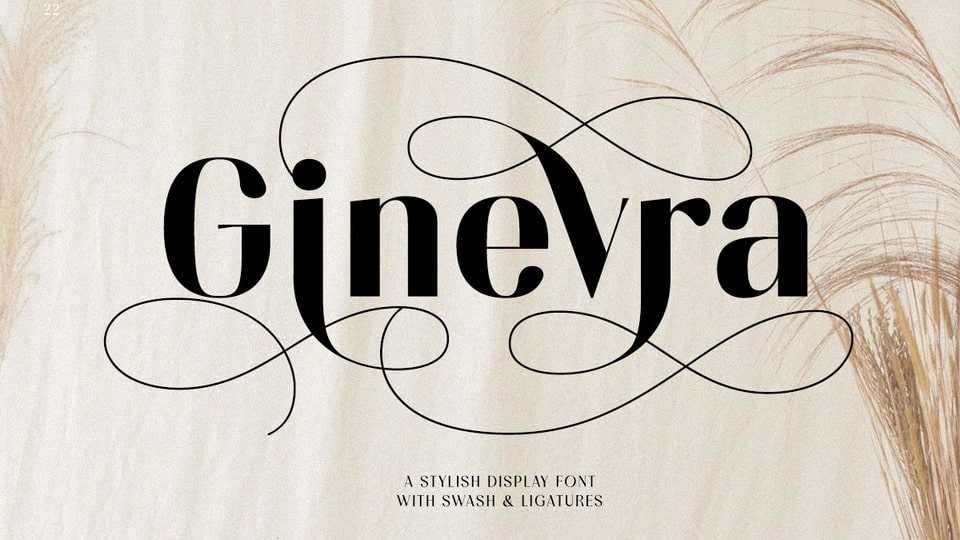
Download Ginevra font, a sophisticated sans serif typeface with swashes and ligatures. Ginevra has unique high contrast between the body of the letters with the swashes which makes it different than the others.